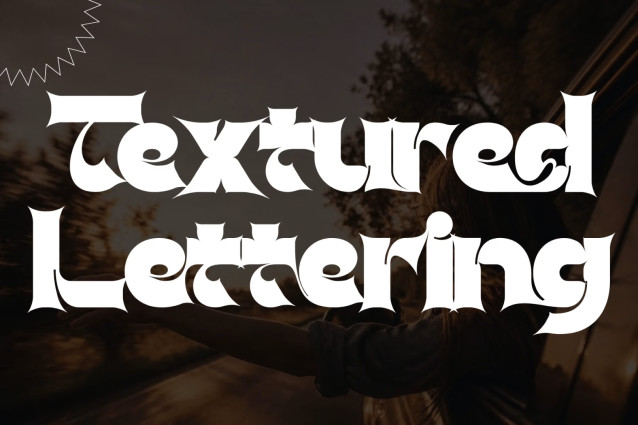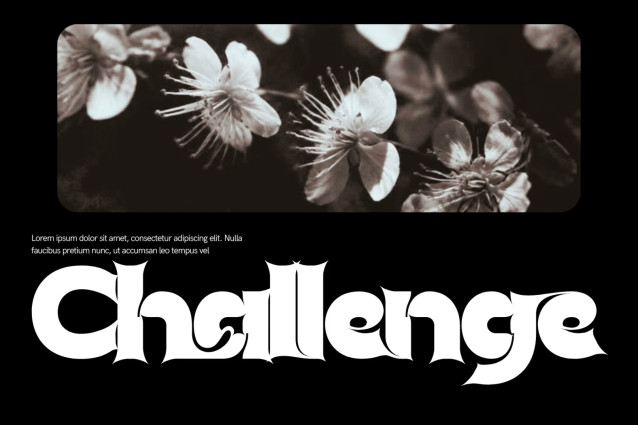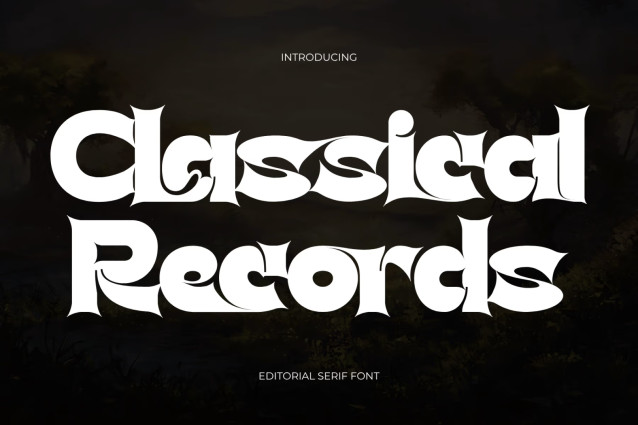
Classical Records – Bold Serif Font
Classical Records – Bold Serif Font – Modern Psychedelic Retro Serif & Groovy Display Font is a spellbinding psychedelic display serif typeface crafted at the expressive intersection of 1970s groovy nostalgia, vintage vinyl record aesthetics, and sharp Art Nouveau flourishes. Defined by its heavy chunky stems, dramatic stroke contrast, and distinctively carved spiky concave terminals, this font commands immediate visual attraction with an authentic retro-artistic soul.
Engineered to transform headlines into instant, rhythm-infused logotypes, Classical Records brings a captivating liquid flow and nostalgic elegance to modern design projects. Its unique blend of melting curves and sharp decorative points makes it the ultimate typographic choice for music album covers, vintage record labels, psychedelic event posters, boutique packaging, retro lounge brandings, and high-impact editorial graphics.